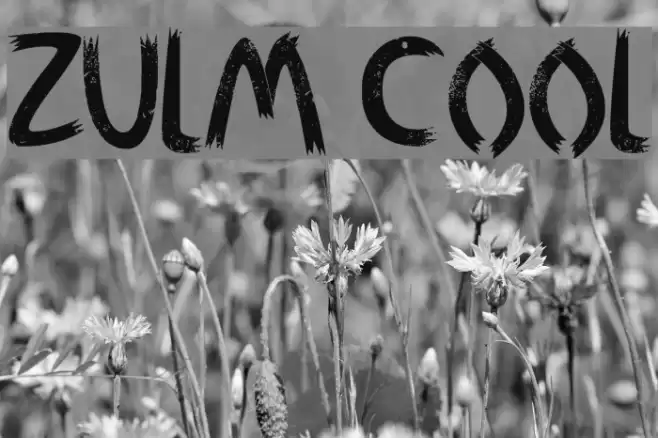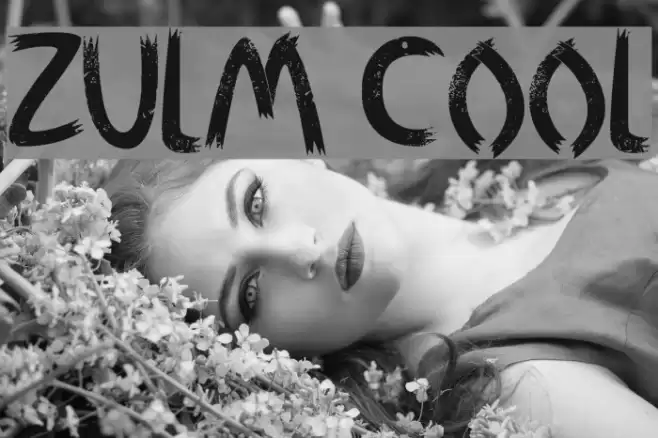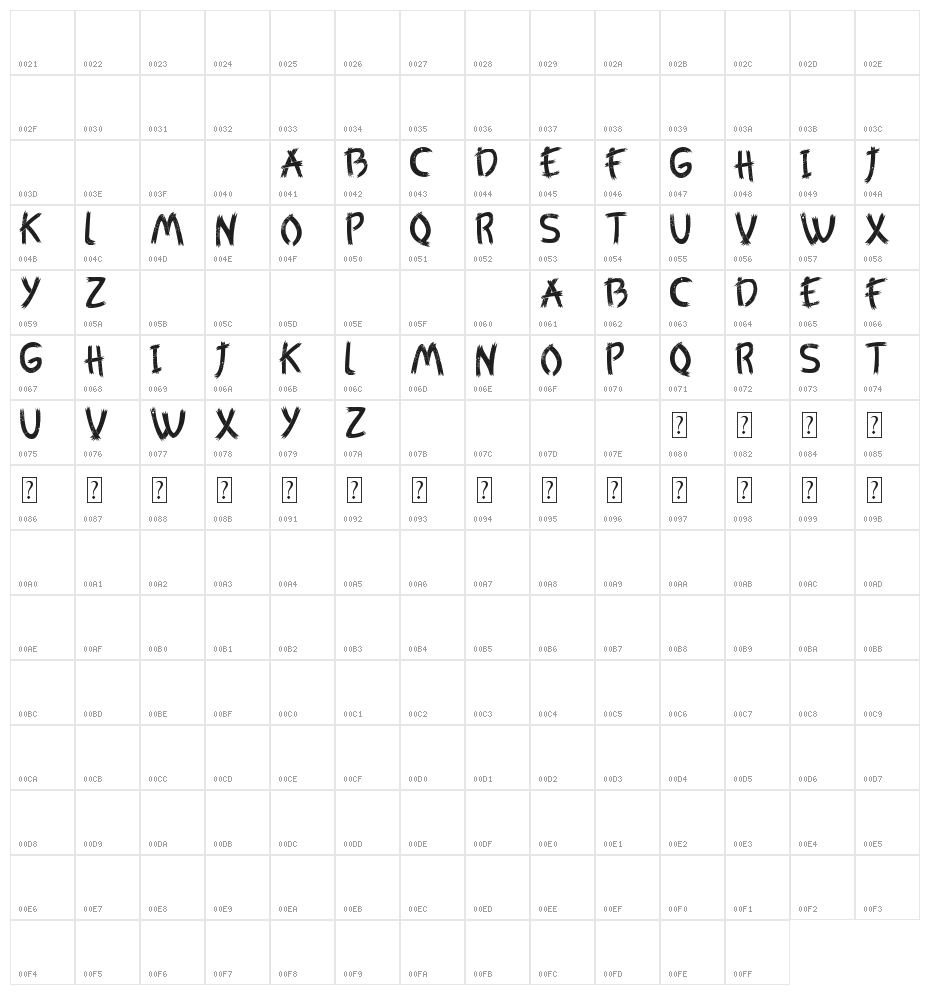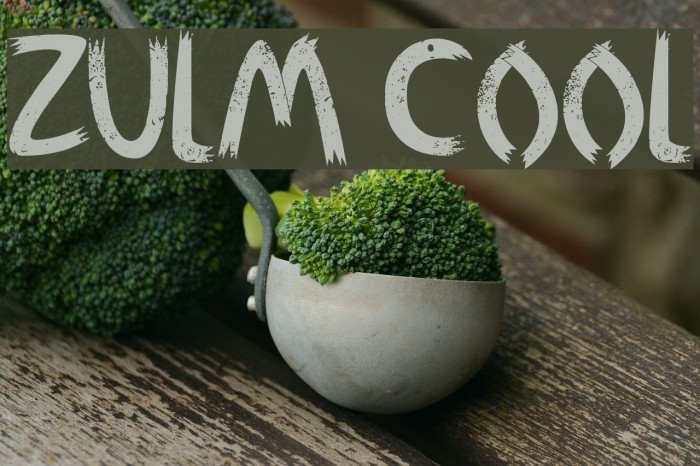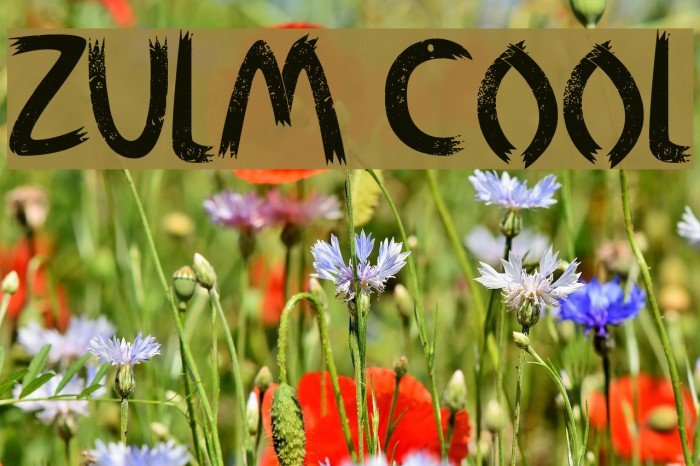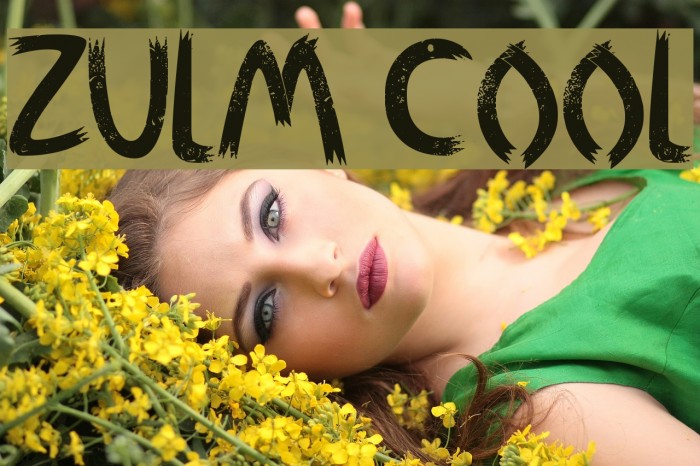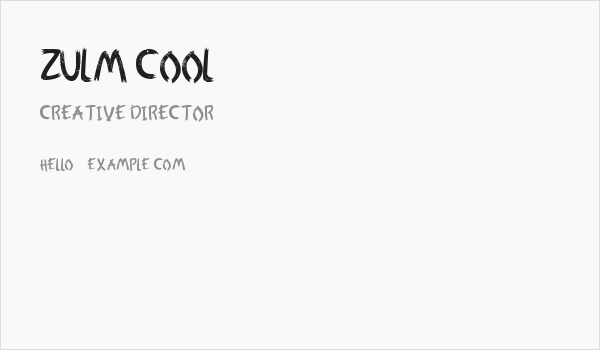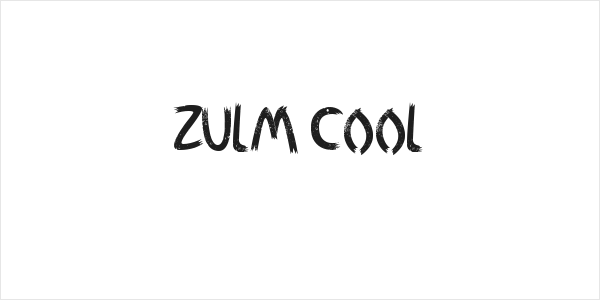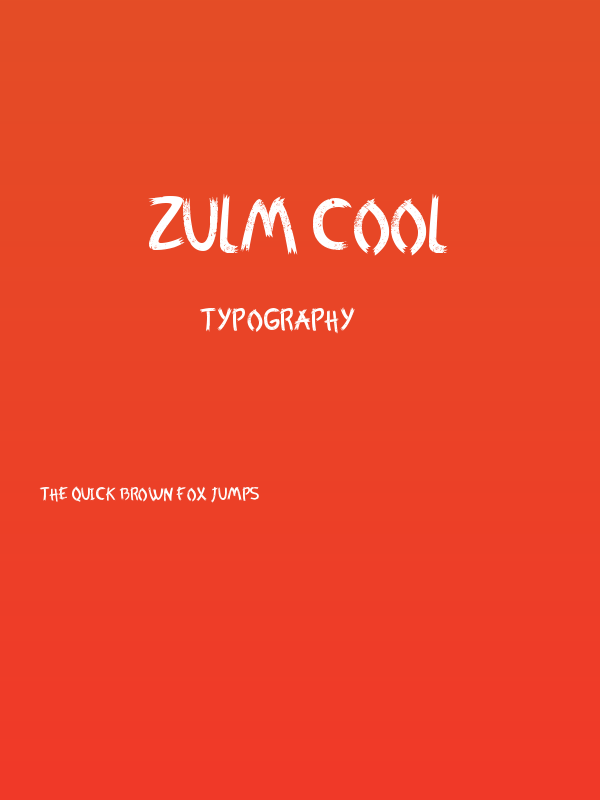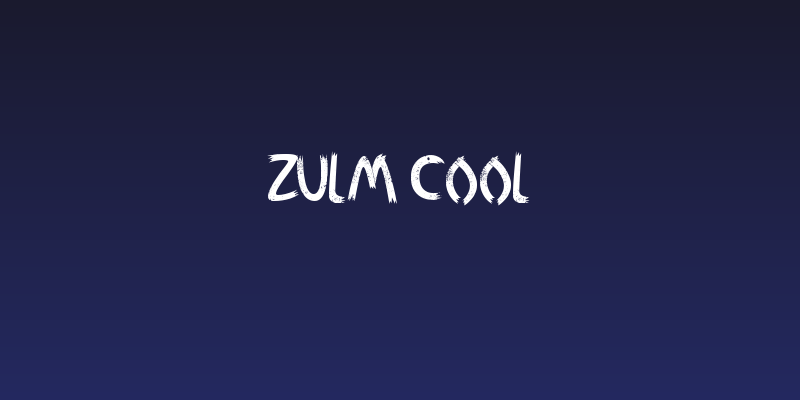
Zulm Cool Font
Zulm Cool Description
This font features a bold and edgy style with a distressed, grunge-like appearance. The characters are designed with rough, jagged edges and irregular strokes, giving them a dynamic and energetic feel. The uppercase letters are bold and prominent, while the lowercase letters maintain the same rugged aesthetic. The font's unique texture and bold presence make it stand out, ideal for projects that require a strong visual impact. The design is reminiscent of urban street art or graffiti, making it suitable for creative and unconventional uses.
A bold, distressed font with a grunge-like, edgy appearance from Uncategorized fonts.